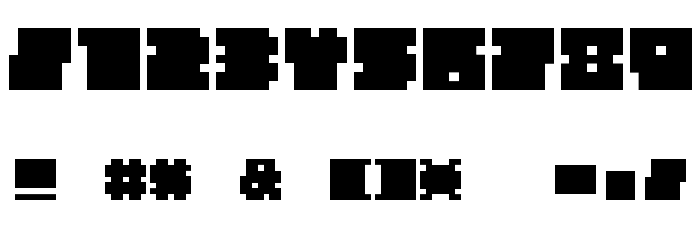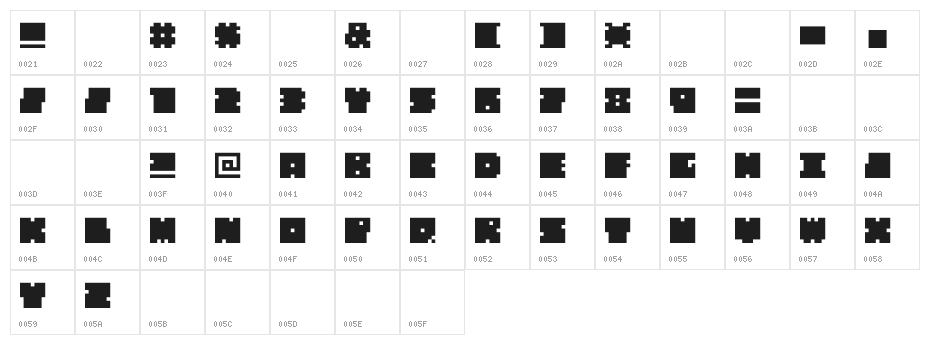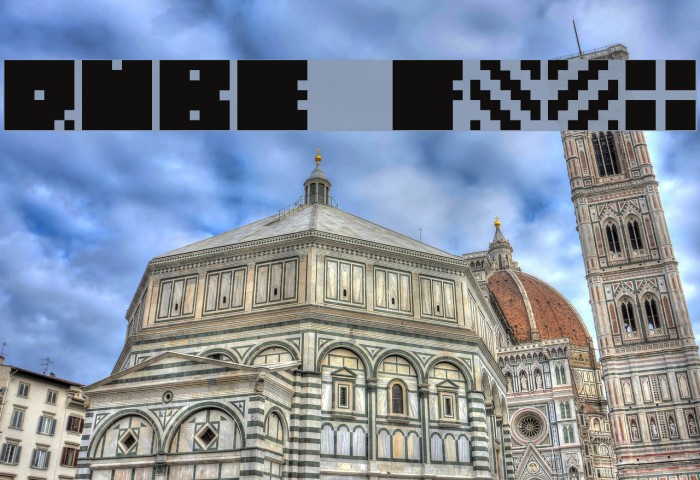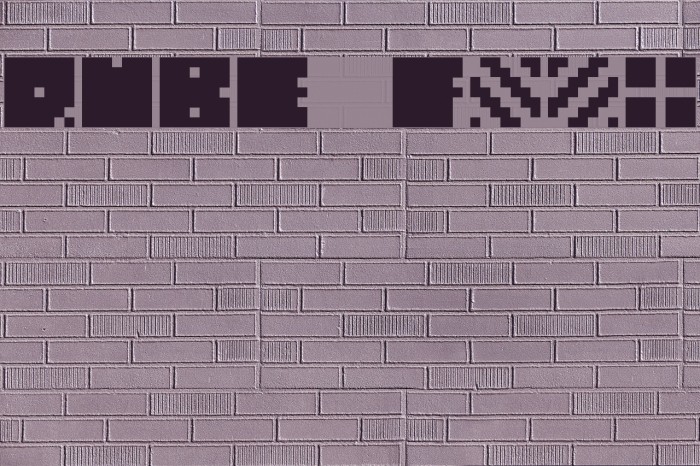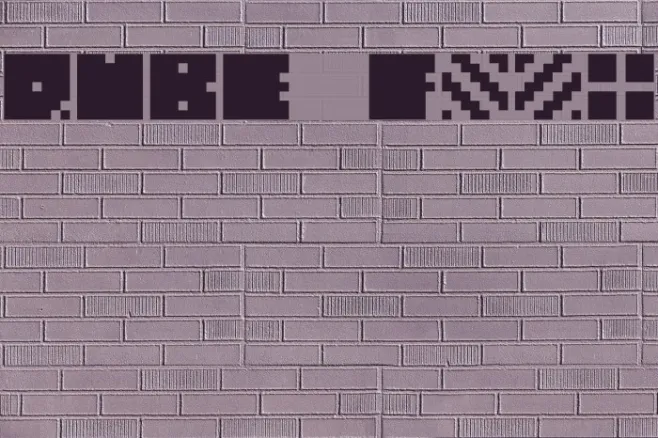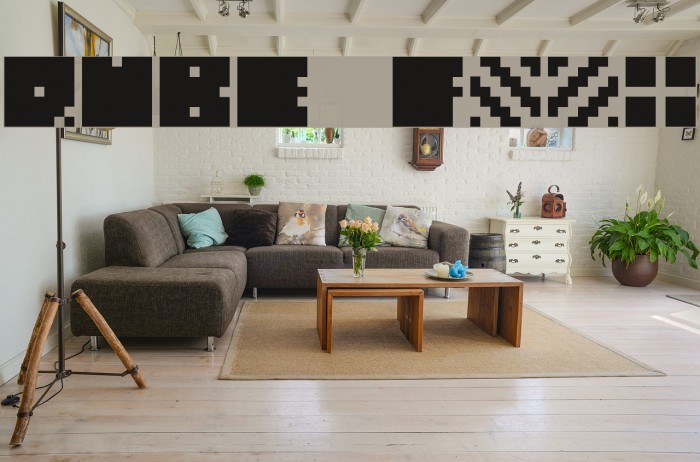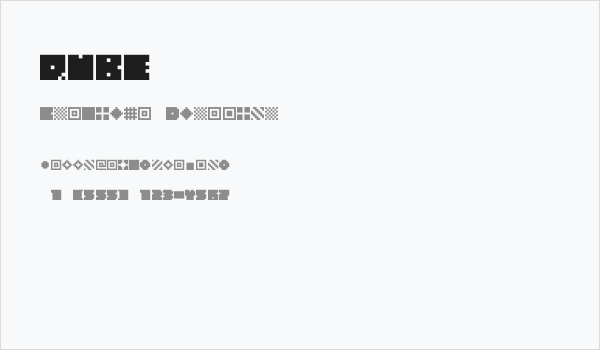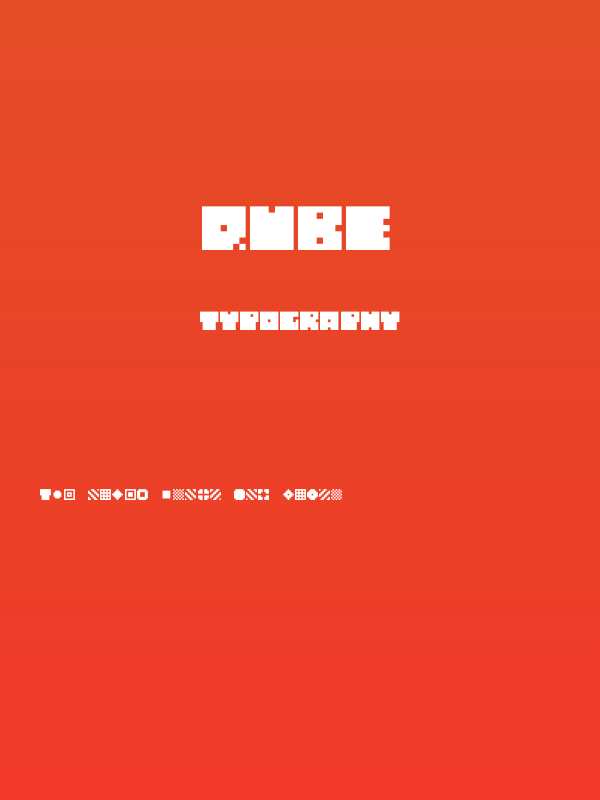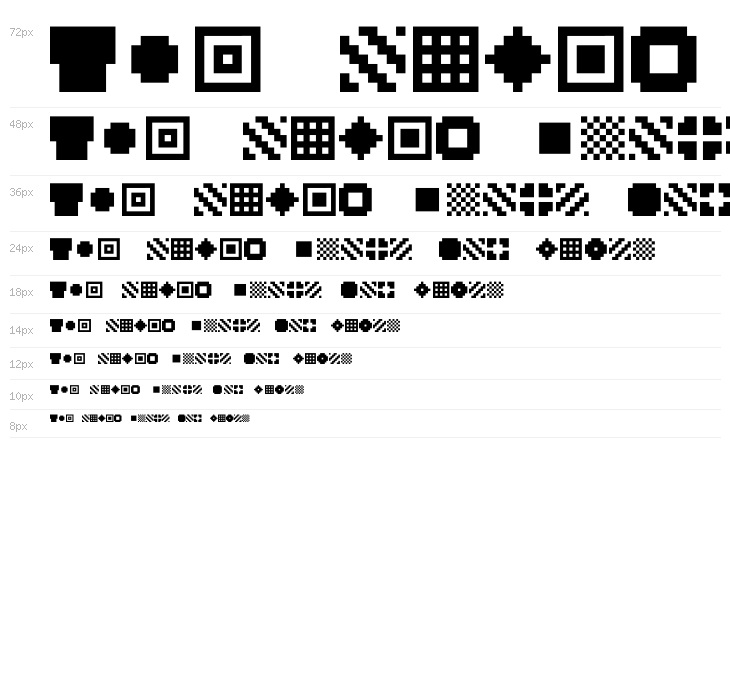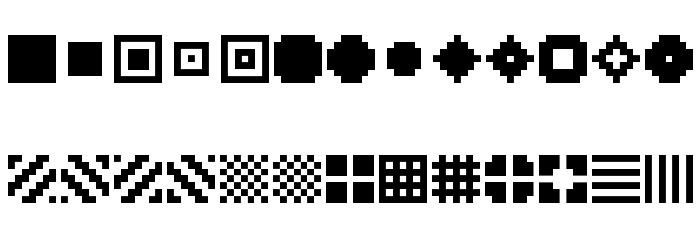
QUBE Font
QUBE Description
This font features a bold, geometric design with a pixelated, blocky appearance. Each character is composed of solid, square shapes, giving it a digital, retro aesthetic reminiscent of early video game graphics. The uppercase letters are uniform in height and width, creating a cohesive and structured look. The numbers and special characters follow the same design principles, ensuring consistency throughout. This font's unique style is eye-catching and ideal for projects that require a strong visual impact.
| Use Case | Headlines, Logos, Digital Art |
| Proposed Projects | Ideal for video game graphics, digital art projects, retro-themed designs, and eye-catching headlines. |